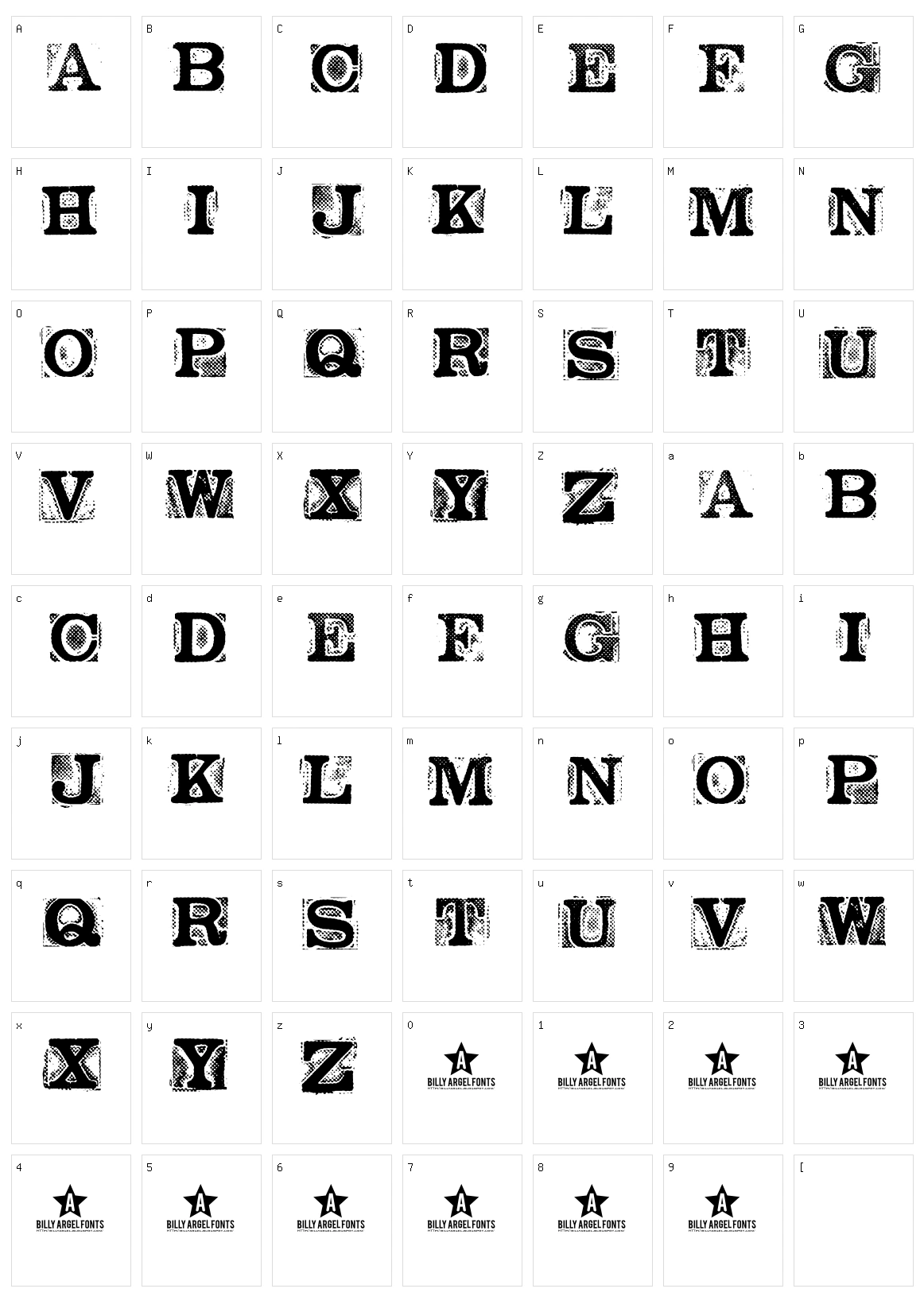
The free font Network Vampires is carefully designed by Billy Argel Fonts ®, showcasing a thoughtful balance of creativity and usability and falls under the Distorted font style. When you download the ZIP file, it contains only 451.31 KB of font files, making it lightweight and quick to download. Please review the license details below to understand permitted usage and distribution rights. If license information is not available, we recommend using this font for personal projects only or contacting the author directly for commercial usage permissions.